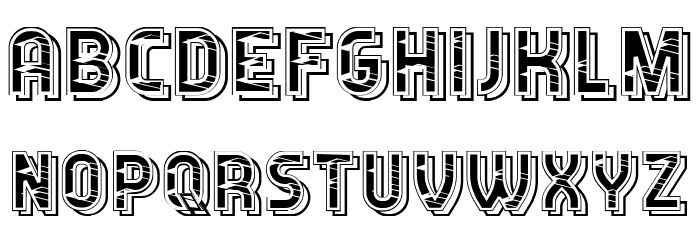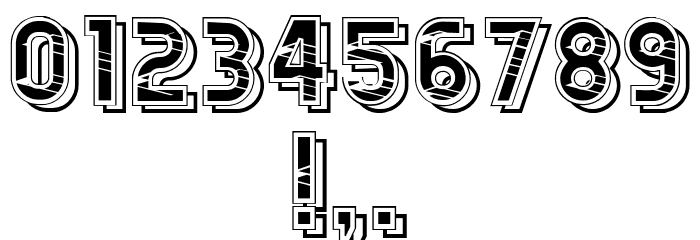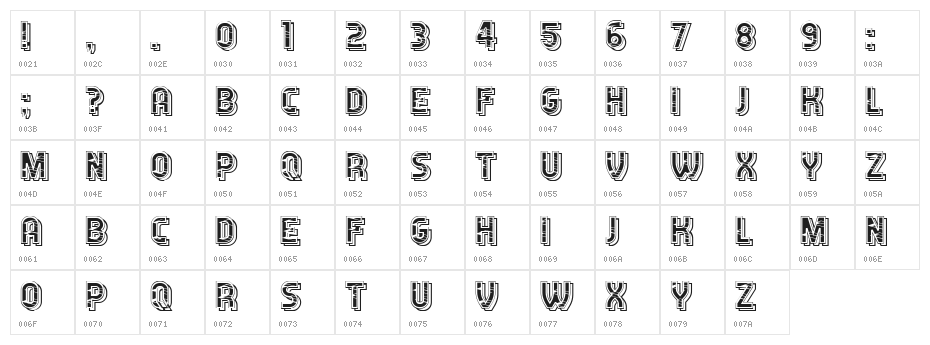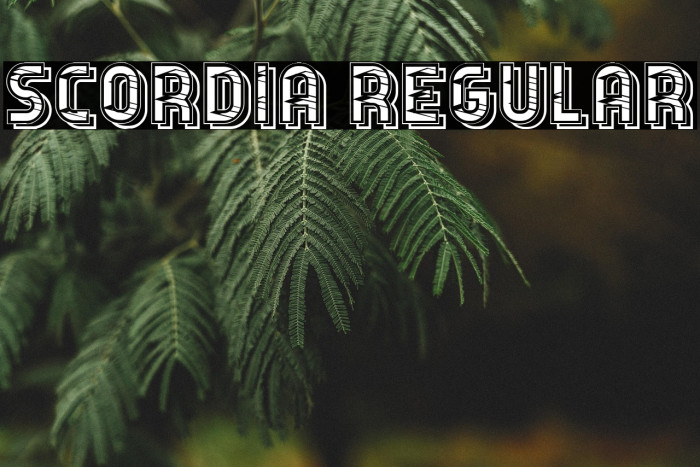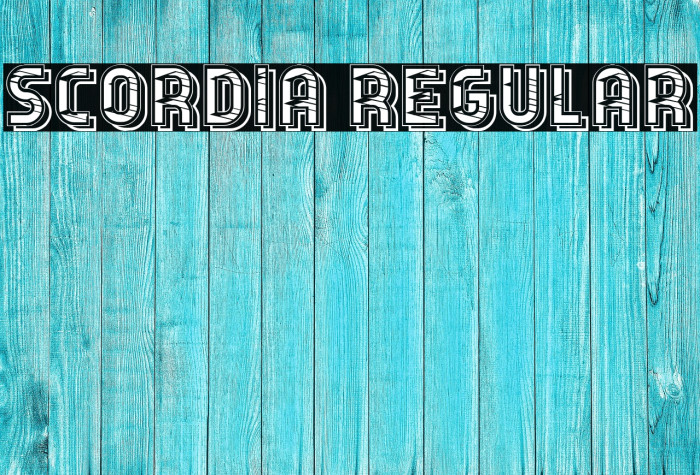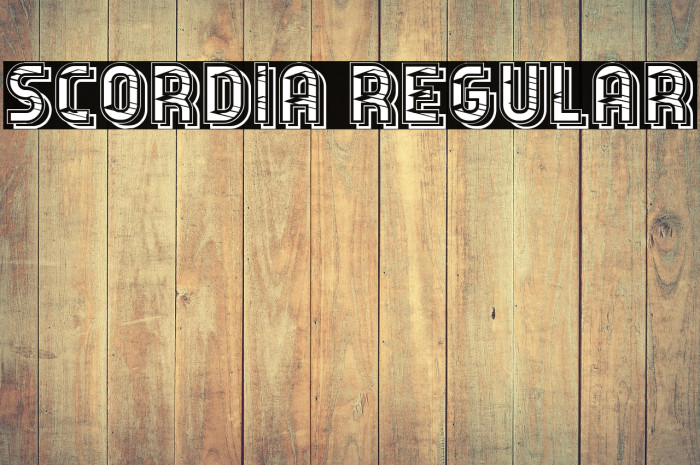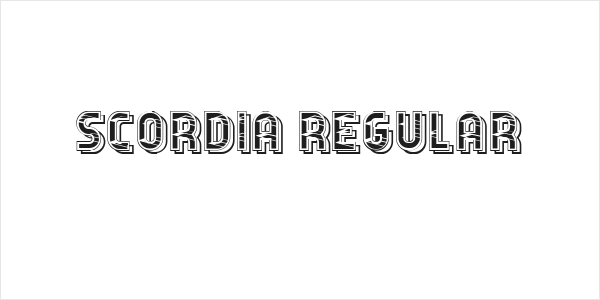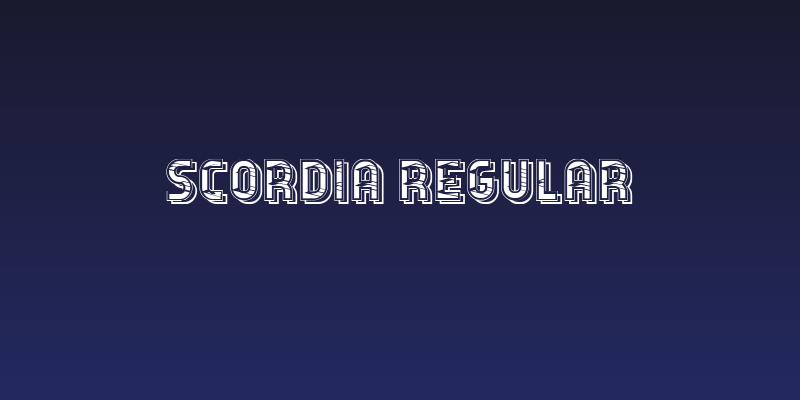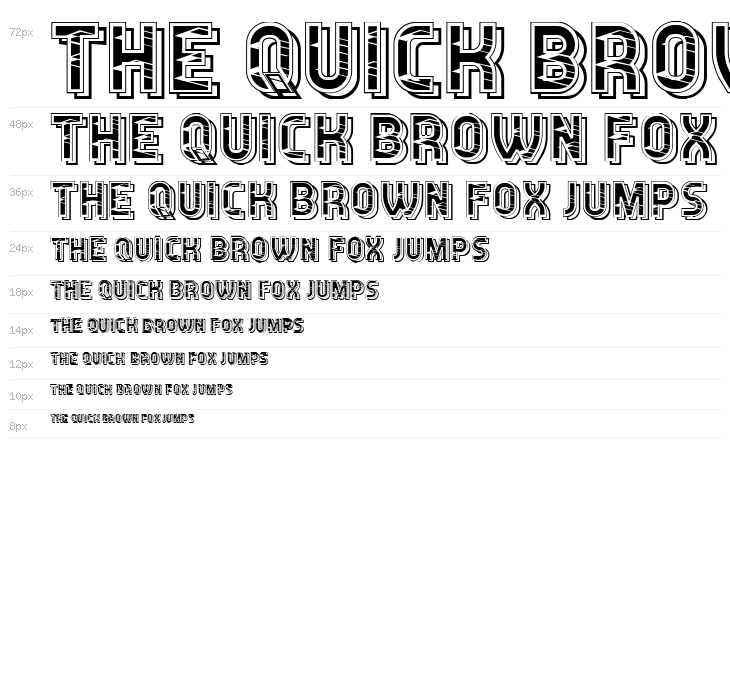
Scordia Regular Font
This font features a bold, decorative style with a three-dimensional effect created by layered outlines and shadows. The characters are uppercase and numerals, with a strong geometric influence that gives them a modern, industrial feel. The design incorporates sharp angles and clean lines, making it stand out with a striking visual impact. The spacing between characters is normal, allowing for readability while maintaining its unique style. This font is ideal for creating eye-catching headlines and titles, adding a dynamic and bold statement to any design project.
A bold, decorative font with a three-dimensional, geometric style.
- Proposed Projects: Ideal for posters, logos, headlines, and any design requiring a bold, impactful statement.